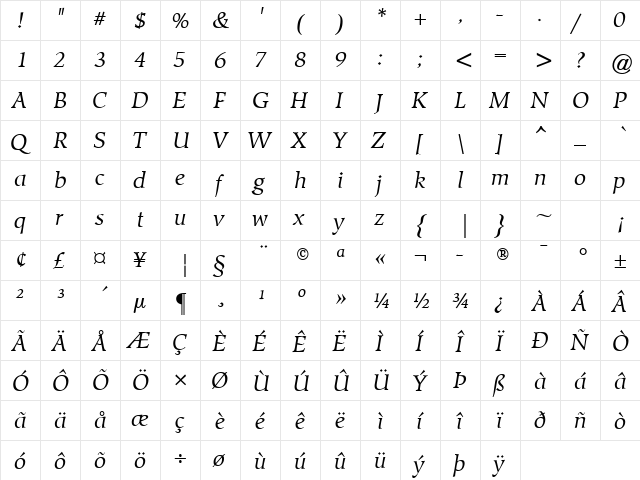
Blue Sky 1 Italic
Design Context for Blue Sky 1 Typeface
Blue Sky 1 takes a measured approach to typography — its balanced proportions and neutral character make it a reliable workhorse for both digital and print work. The dynamic lean of this cut emphasises speed and emphasis in any layout.
Pro Tip: Use Blue Sky 1 for emphasis, pull quotes, and subheadings where its slanted energy can add rhythm to the layout.